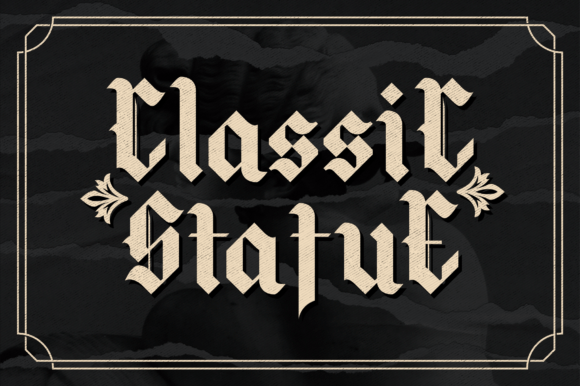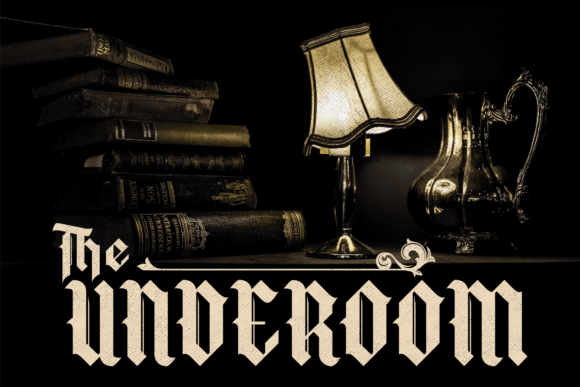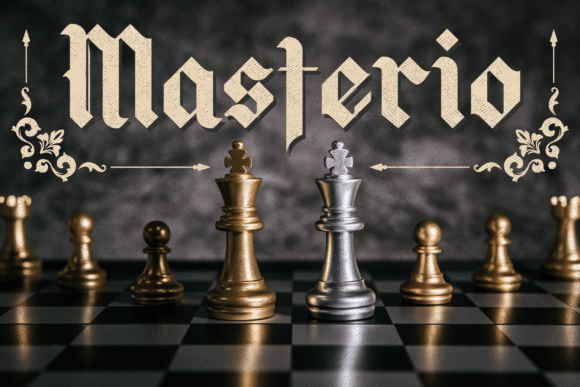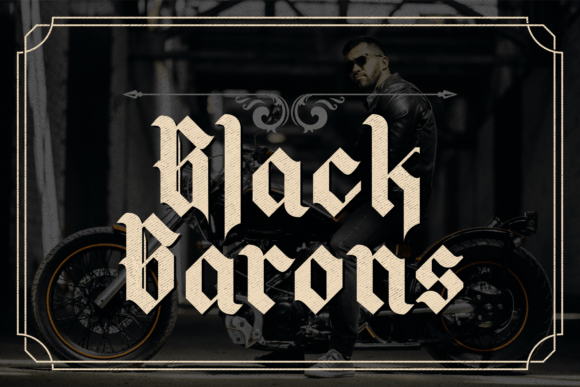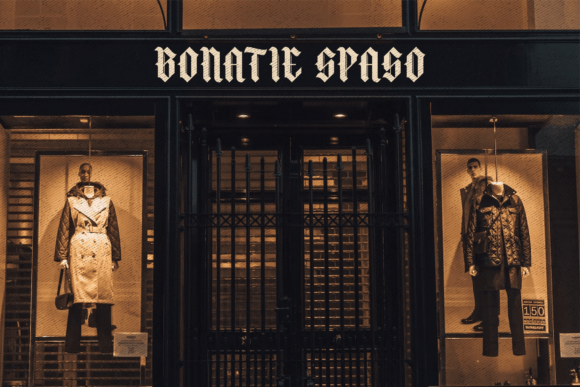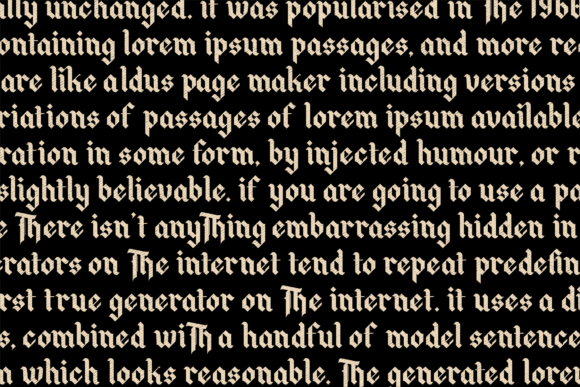
Introducing Blacking Font: A Timeless Vintage Black Letter Typeface
Are you a designer or crafty enthusiast looking for a classic and retro font to elevate your creative projects? Look no further than Blacking Font, a stunning vintage black letter typeface that’s perfect for creating elegant and luxurious designs. In this article, we’ll dive into the world of Blacking Font, exploring its features, uses, and benefits, as well as provide tips and inspiration for incorporating it into your work.
What is Blacking Font?
Blacking Font is a vintage black letter font that exudes sophistication and elegance. Its classic design is reminiscent of traditional European typography, with intricate details and ornate flourishes that add a touch of luxury to any design. Whether you’re creating a logo, book or movie title, fashion brand, magazine, or clothing design, Blacking Font is the perfect choice for adding a touch of vintage charm.
Features of Blacking Font
So, what makes Blacking Font so special? Here are just a few of its key features:
- Classic design: Blacking Font boasts a timeless design that’s perfect for creating elegant and sophisticated designs.
- Intricate details: The font features intricate details and ornate flourishes that add a touch of luxury to any design.
- Versatile: Blacking Font is versatile and can be used for a wide range of creative projects, from logos and titles to magazines and clothing designs.
Uses of Blacking Font
Blacking Font is a versatile typeface that can be used for a wide range of creative projects, including:
- Logos: Create elegant and luxurious logos for fashion brands, restaurants, hotels, and more.
- Book and movie titles: Add a touch of classic sophistication to your book or movie titles with Blacking Font.
- Fashion brands: Use Blacking Font to create stylish and elegant branding for fashion labels, boutiques, and more.
- Magazines: Create eye-catching magazine covers and layouts with Blacking Font.
- Clothing designs: Add a touch of vintage charm to your clothing designs with Blacking Font.
- Lettering and quotes: Use Blacking Font to create beautiful lettering and quotes for posters, prints, and more.
Tips for Using Blacking Font
Here are a few tips for getting the most out of Blacking Font:
- Use it sparingly: Blacking Font is a bold and elegant font, so use it sparingly to add emphasis and create visual interest.
- Experiment with colors: Try pairing Blacking Font with different colors to create unique and eye-catching designs.
- Mix with other fonts: Combine Blacking Font with other fonts to create interesting and dynamic designs.
- Pay attention to spacing: Make sure to adjust the spacing between letters and words to create a clean and elegant design.
Need some inspiration for using Blacking Font? Here are a few ideas to get you started:
- Vintage fashion branding: Create a luxurious and elegant brand identity for a fashion label with Blacking Font.
- Classic movie posters: Design a vintage-style movie poster with Blacking Font and add a touch of nostalgia to your design.
- Luxury packaging: Use Blacking Font to create elegant and sophisticated packaging for high-end products.
- Wedding stationery: Add a touch of classic romance to your wedding stationery with Blacking Font.
Blacking Font is a timeless vintage black letter typeface that’s perfect for creating elegant and luxurious designs. With its classic design, intricate details, and versatility, it’s the perfect choice for designers and crafty enthusiasts looking to add a touch of sophistication to their creative projects. Whether you’re creating logos, book or movie titles, fashion brands, magazines, or clothing designs, Blacking Font is sure to impress.